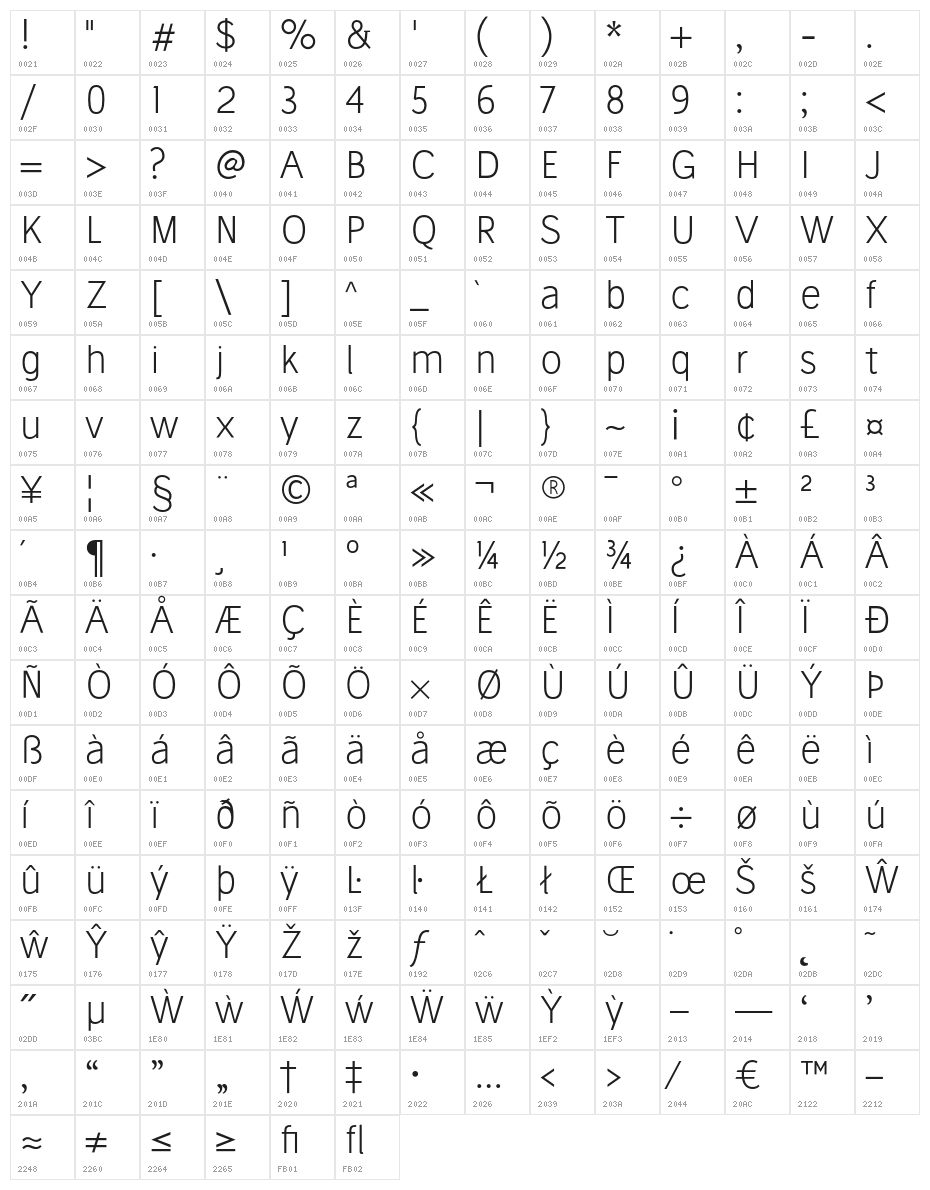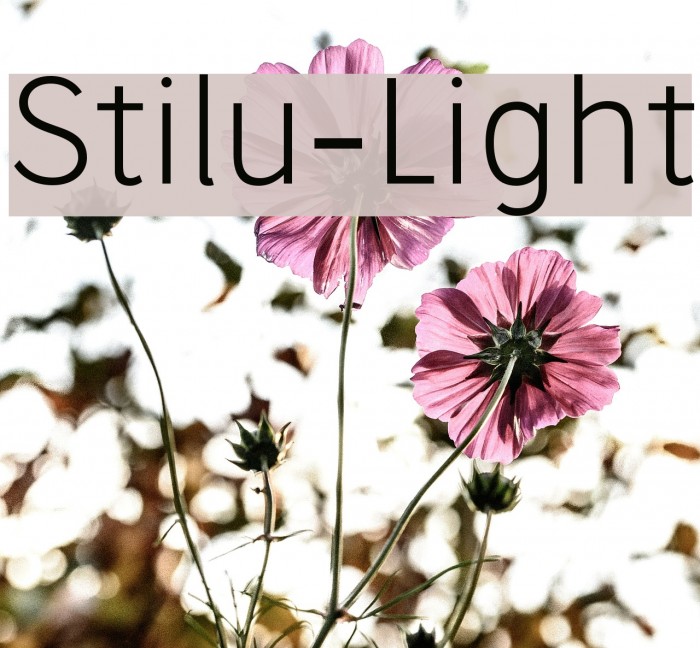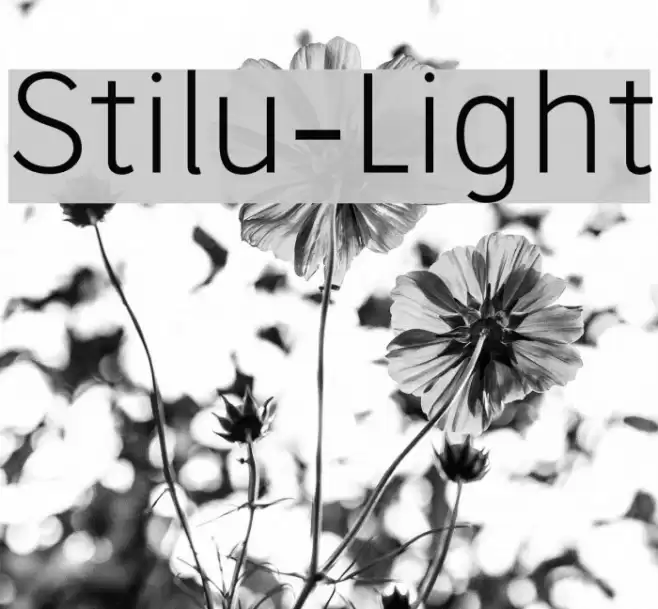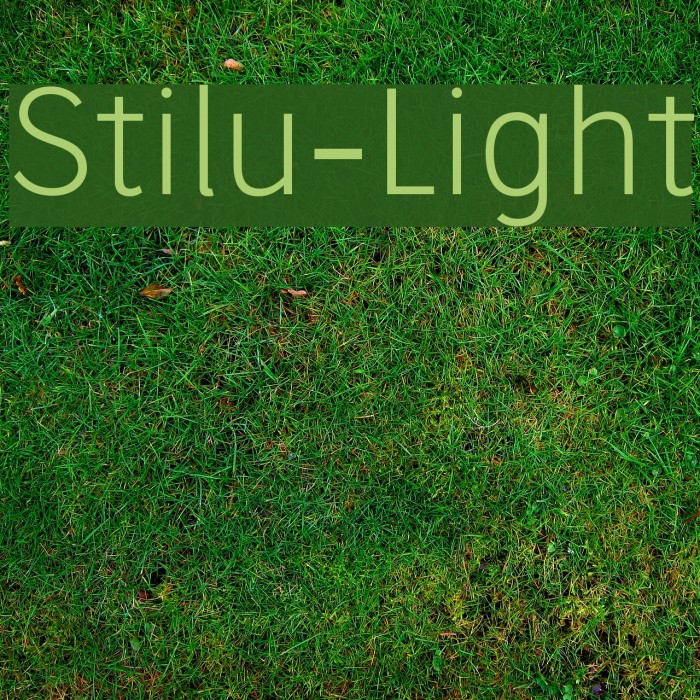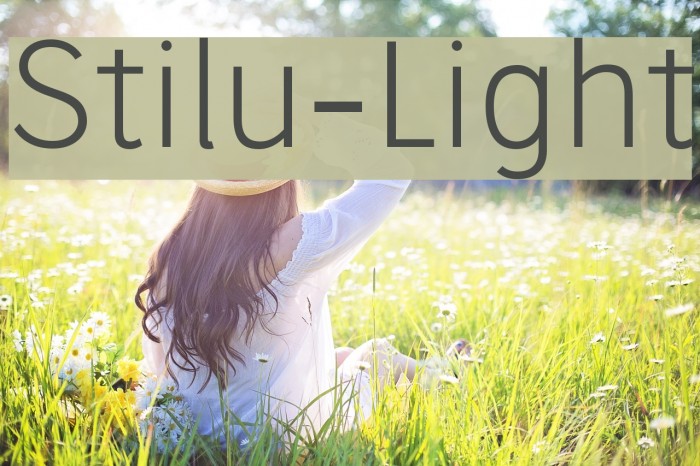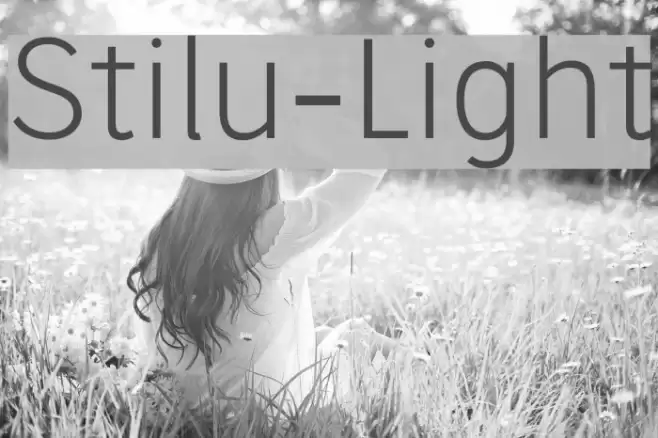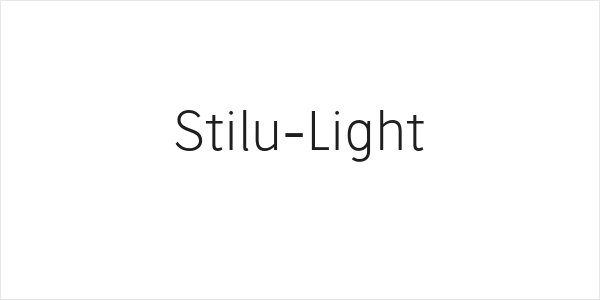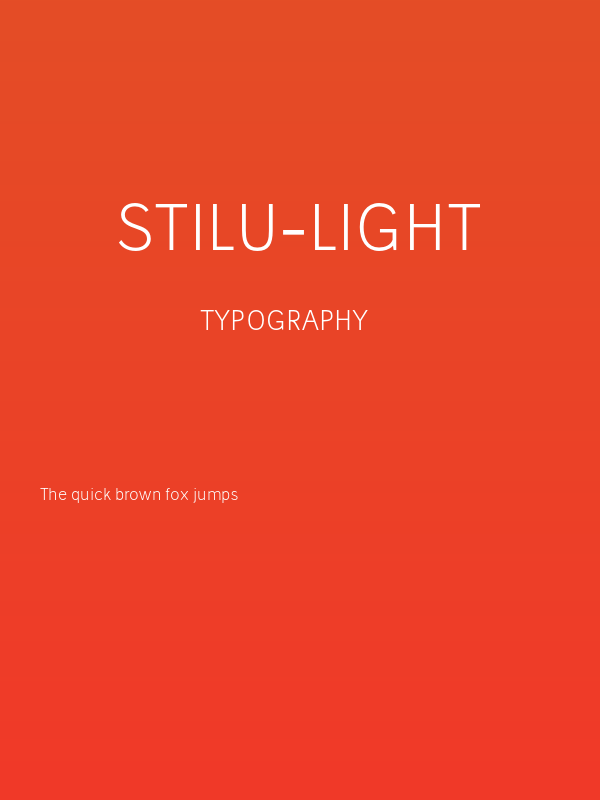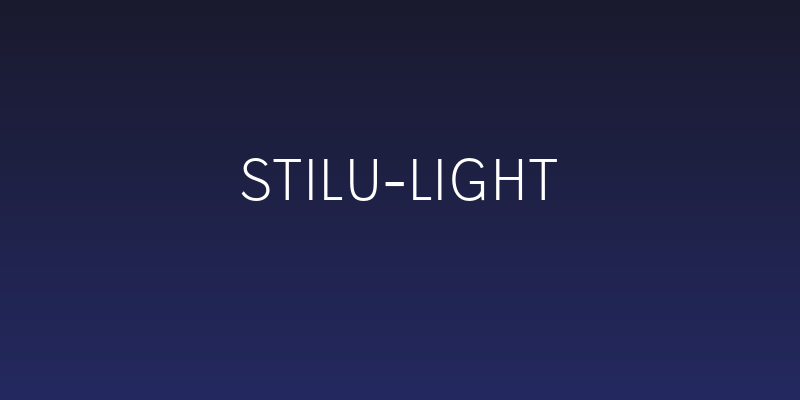
Stilu-Light Font
Stilu-Light Description
This font exhibits a clean and modern sans-serif style, characterized by its light weight and minimalistic design. The characters are evenly spaced, providing a balanced and harmonious appearance. The uppercase and lowercase letters maintain a consistent height and width, contributing to its readability. The numerals and special characters are designed with the same attention to detail, ensuring uniformity across all glyphs. This font's simplicity and clarity make it suitable for a wide range of applications, from digital interfaces to print media.
Genilson L. Santos
| Proposed Projects | Ideal for web design, corporate branding, user interfaces, and minimalist print layouts. |